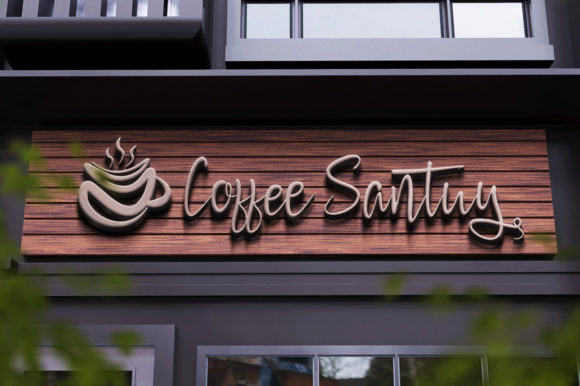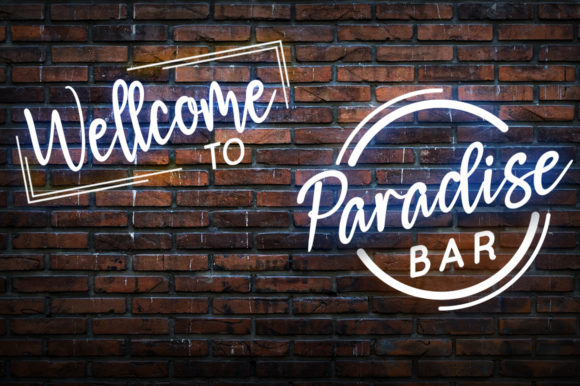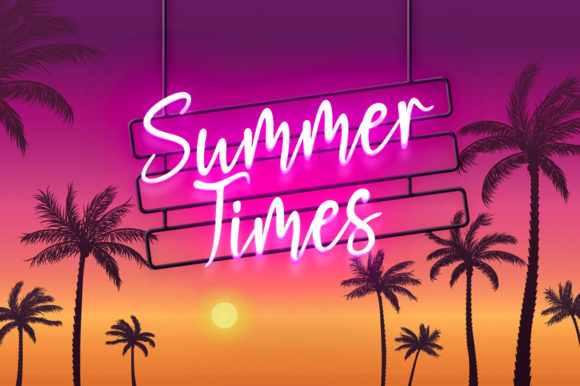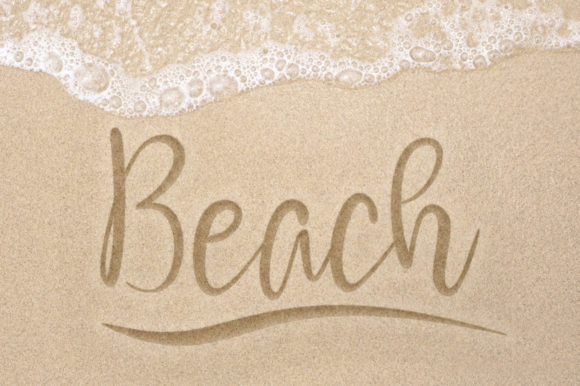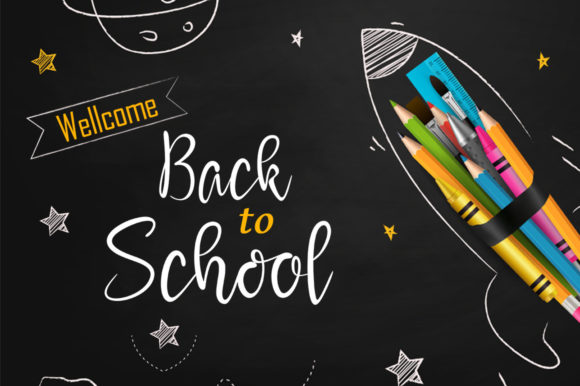
Mogilla Script Font
About Mogilla Script Font
Mogilla Script is a lovely and sweet calligraphy typeface with characters that dance along the baseline. It will add a luxury spark to any design project that you wish to create! This font is PUA encoded which means you can access all of the amazing glyphs and ligatures with ease!